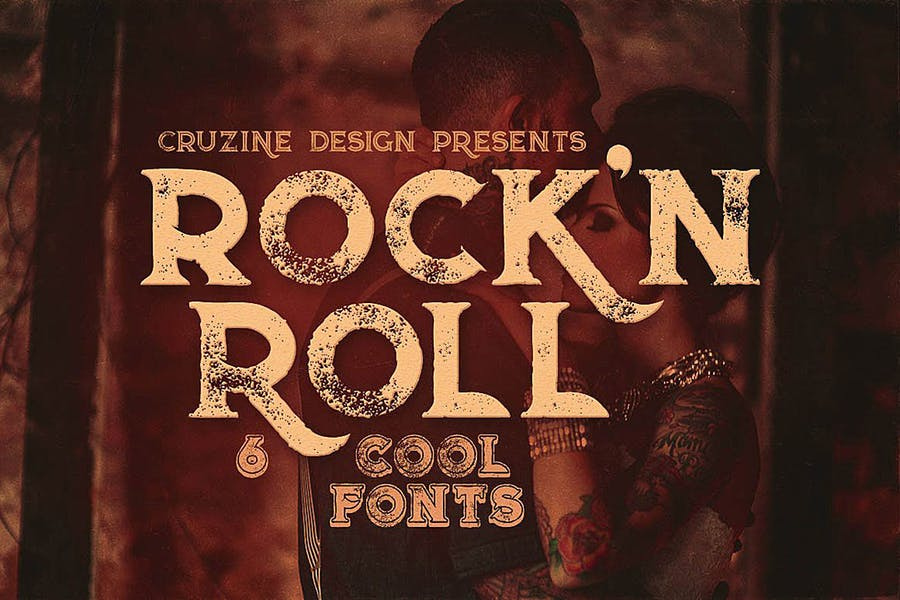
Rock'n Roll Typeface
Rock'n Roll Typeface is perfect for music festival branding, rock concert promotions, electric guitar manufacturers, vintage record stores, music streaming platforms, band merchandise designs, rock radio stations, entertainment venue signage, rebellious fashion brands, and authentic rock culture organizations.
Rock'n Roll Typeface creates excitement because it embodies the electrifying energy and revolutionary spirit of rock and roll music with its bold letterforms and music-inspired character design. The font's powerful presence and rebellious aesthetic instantly convey musical authenticity and rock credibility, making any brand appear genuinely electrifying and authentically connected to rock heritage. Its carefully crafted musical details and revolutionary character create an immediate sense of rock electricity that captivates audiences seeking rock experiences, musical quality, and products that celebrate the transformative power of rock and roll music and rebellious artistic expression.
The Rock'n Roll Typeface family includes multiple weights and styles: Regular, Bold, Black, Ultra Black, Light, Medium, Italic, Condensed, Extended, and Electric versions. Each variant maintains the font's signature rock character while offering different levels of musical styling and rebellious authenticity suitable for various music industry and entertainment applications.